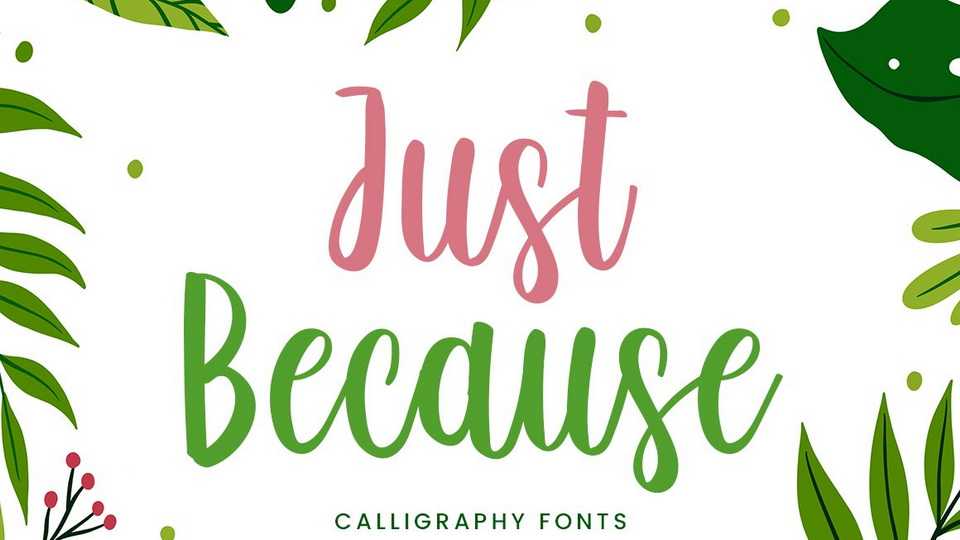
Download Just Because font, a sweet modern calligraphy script with a beauty feel. Its distinct and well rounded letters make Just Because font a masterpiece.